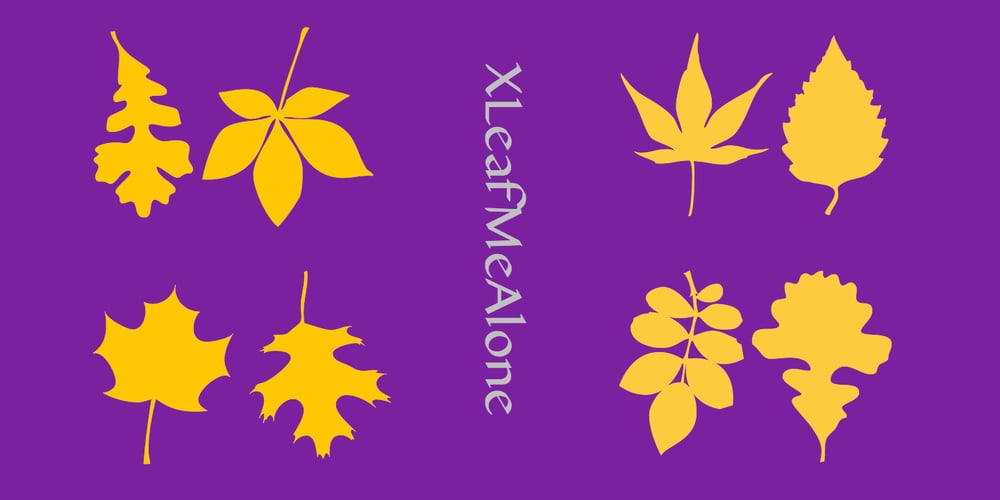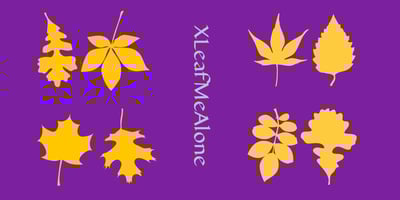
XLeefMeAlone
XLeefMeAlone font
XLeefMeAlone Font Family was designed by Robert Schenk and published by Ingrimayne Type. XLeefMeAlone contains 1 styles and family package options. XLeafMeAlone is a collection of leaf silhouettes from common Indiana trees based on actual leaves. Various leaves, selected for their good looks not their intelligence, were scanned and hand-traced. Some species, such as some oaks, are over-represented because they are more picturesque than others, such as apple or peach. LeafMeAlone was featured in the “Type Drawer” column of Personal Publishing (later renamed Business Publishing–I do not know if it still exists) in November of 1990.